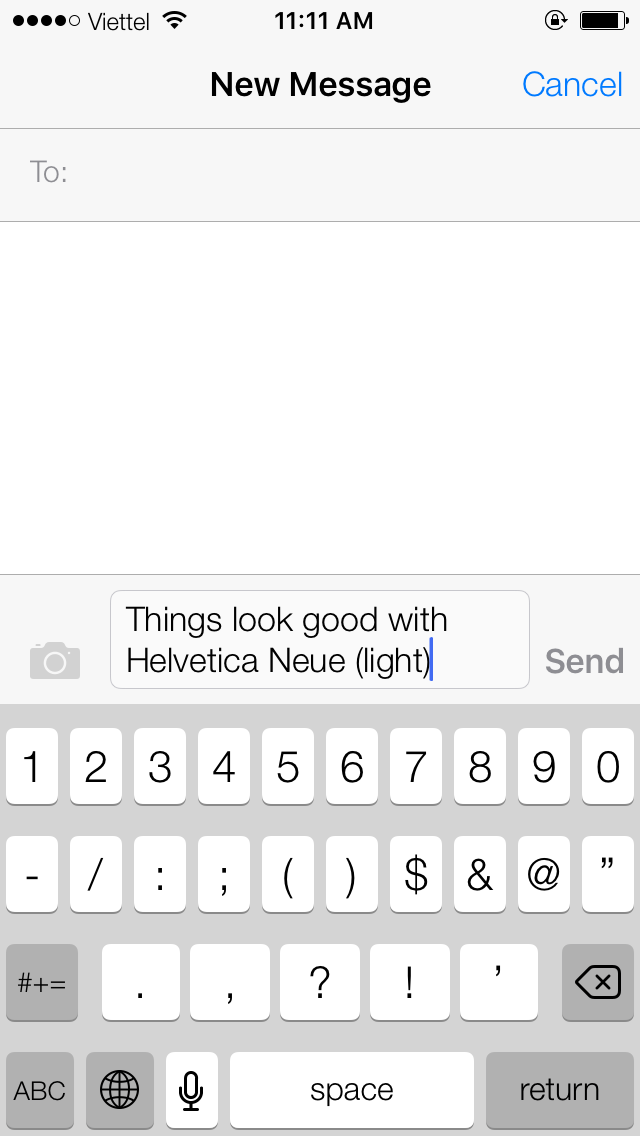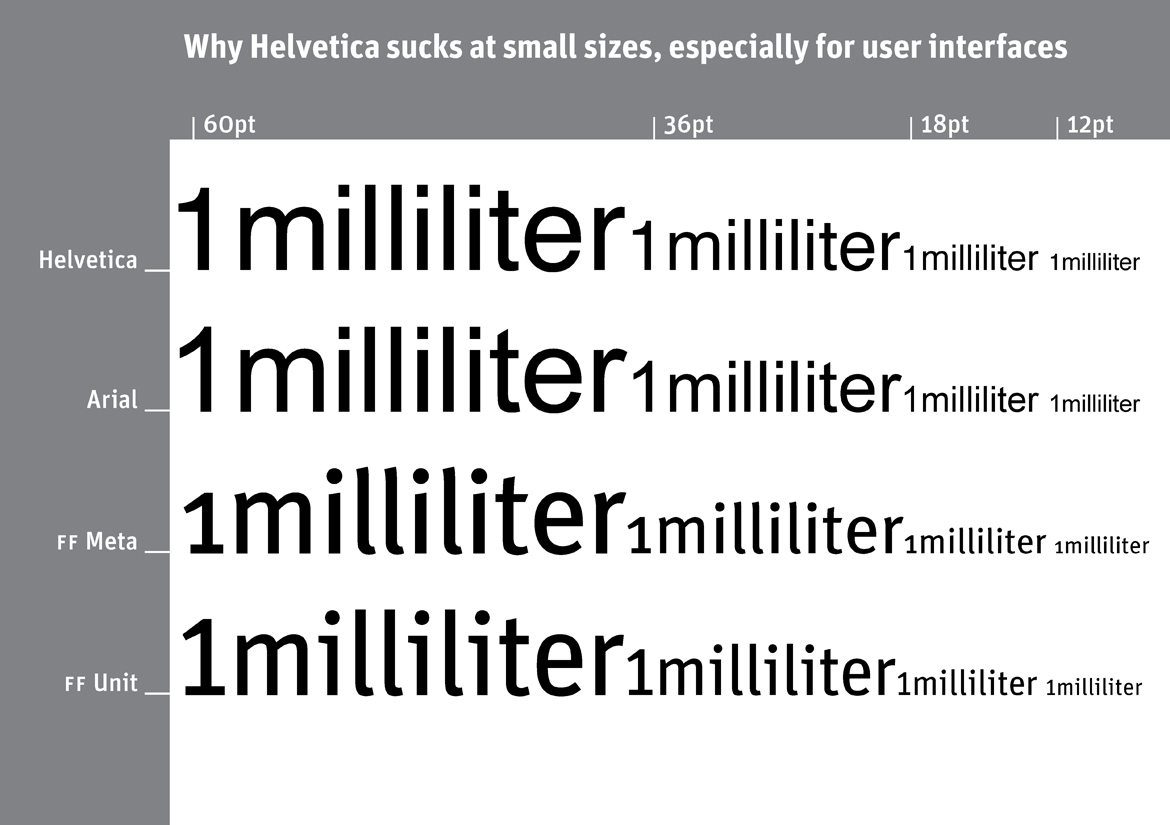
I hope they at least adjust the status bar time. It looks really wonky and the numbers are too spaced out. Also as a whole some of the text in various places looks too spaced out and I focus in on that when I'm reading something. Then again I've been looking at helvetica for so many years now that anything different looks weird and will take some getting used to like everyone else.
There can always be a first time. Even if it is after 10 years. What is the harm in asking?
Just switched from an HTC One (M8) to an iPhone 5S a couple of weeks ago. I couldn't stay on iOS 8, had to go to 9 at least because of the font. That's probably one of the things Google did right so long ago with Android, designing a font specifically for readability on small screens. Even though SF is quite similar to Roboto, I'll definitely say it's a welcome change.
Can someone please tell me why Helvetica was hard to read? I still don't really understand anyone's reasoning about that. I thought it was just fine. It's essentially the same as Arial and these are both pretty widely used. If you have problems with your eyesight, then increase the font size on your phone! San Francisco looks childish, and not like Apple. They might as well have used Comic Sans. Awful.
The San Francisco font has letters spaced out and designed for easier readability. Personally I'm fine with either font.
Can someone please tell me why Helvetica was hard to read? I still don't really understand anyone's reasoning about that. I thought it was just fine.
The thing is: you shouldn’t use a typeface that works only for some people, you should use one that works for most. The primary function of a typeface is readability, unless it is meant to be eye-catching in itself. Helvetica Neue is a weird hybrid that works on some level for body text, but it is a more popular choice for logos, signage and larger surfaces. The problem with Helvetica Neue is that it has just one cut that is used for every font size and a range of widths and thicknesses. It has no optical sizes and no alternative cuts for different canvas sizes.
San Francisco solves that problem: there is a font for iOS 9 and OS X El Capitan and there is another for the Apple Watch. They share common design features but differ when readability was key. Both cuts have also two optical sizes that are optimised for small and large text. You thus have a font that was specifically designed for the display size and an optical size that was specifically designed for that text size. Each of these were designed for legibility. For instance, the text optical size has larger lower-case characters in relation to upper-case characters, which makes them easier to read. They also changed the look of some characters, like the i so that it is easier to identify.
Gizmodo posted this image last year:
Frankly, most people don't even notice it unless they are told that the font has changed.
That is meaningless to the OP, I understand; but I'm very detail-oriented and readily analyze font details, and I have to say that San Francisco is NOT at all that much of a departure from the Helvetica Nueue.
I needed a couple seconds to warm up to San Francisco, and now I love it.
To me, it's not worth compromising the security of my iPhone with a jailbreak. The potential negatives of jailbreak outweigh the positives, by far.
This is not just a matter of aesthetics.
I use a navigator app that displays vehicle speed. it worked perfectly in ios8. In ios9 anything over 100km/h displays as 10..
I suppose the app devloper will eventually change the app to cope with the new font but the inability to change the system font is very irritating.
Hi everybody, Sorry for dig up an old post! As the jailbreak came out, I jailbreak my devices and use Byta font 3 and tweak mode to change all my font back to Helvetica Neue. And things look good like before!!!
I wonder why there is no Helvetica Neue in Swap Mode. Tried to look for it but still not found.
and I have some problems with the font Helvetica Neue in Bytafont3
I change font of the clock (on lockscreen) to Helvetica Neue Ultralight but the character ":" is different from the original Helvetica Neue Ultralight in iOS7 of my iPhone 4s.
update: Just google and know that the colon mark (only) is from another font (avenir font). Don't know how I can adjust the clock font with Helvetica and Avenir query.